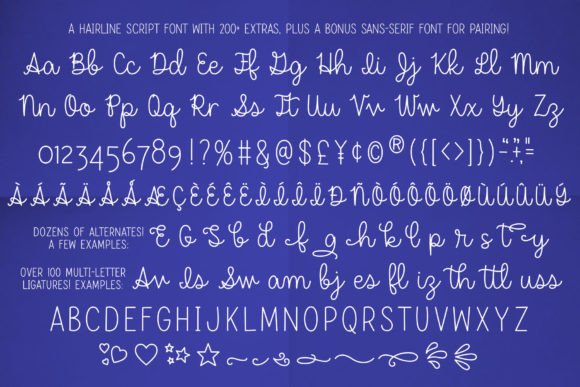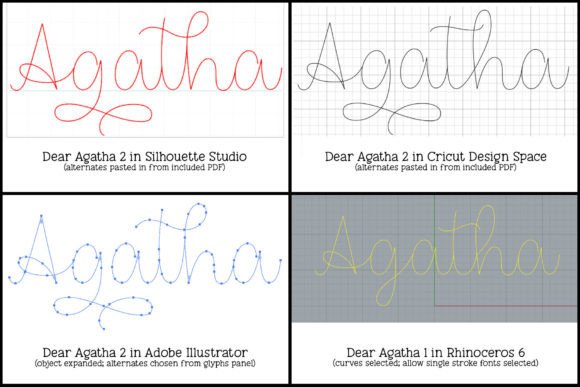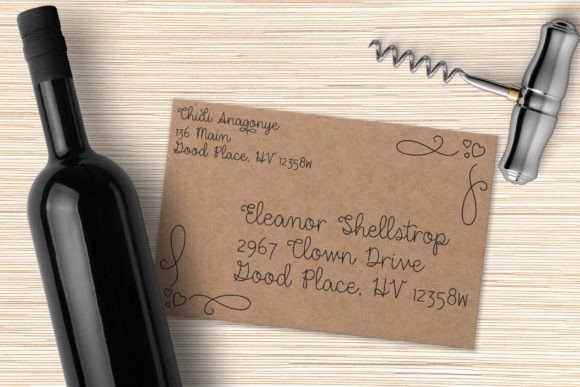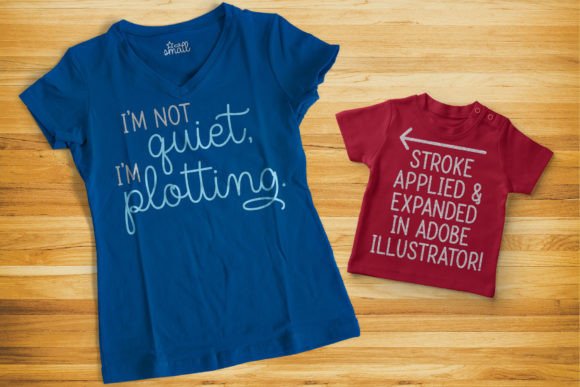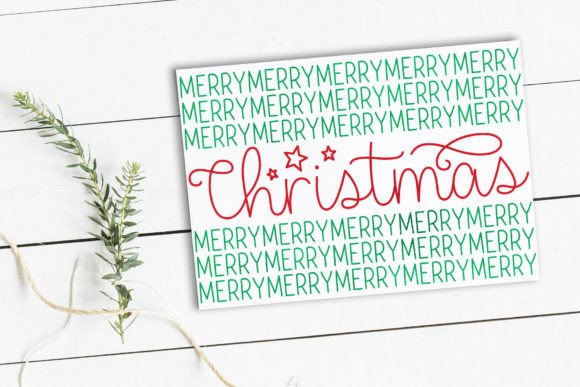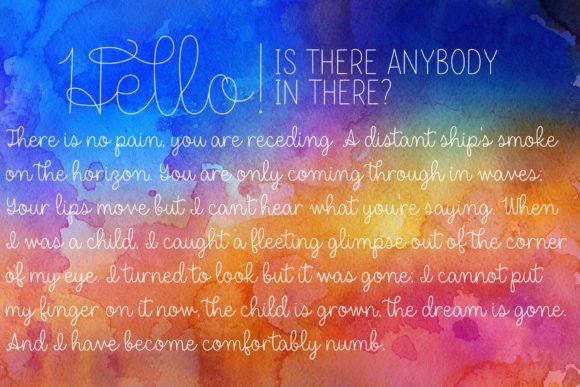
Introducing Dear Agatha: A Stunning Single-Line and Hairline Font Duo
Are you tired of using ordinary fonts for your creative projects? Look no further than Dear Agatha, a unique single-line and hairline font duo that’s perfect for designers and crafters. This versatile font combination includes a fun cursive script with tons of alternates and extras, paired with an all-caps sans-serif font for easy pairing.
What are Single-Line and Hairline Fonts?
Single-line and hairline fonts are not your typical fonts. Unlike standard fonts, they are designed to be used with a sketch pen, foil quill, engraving tool, infusible ink pen, or any other stylus or nib that draws letters with a single line instead of an outline. This means they can’t be used for word processing, printing, or cutting, but are perfect for adding a personal touch to your designs.
Meet Dear Agatha: A Connecting Script Font
Dear Agatha is a beautiful connecting script font that features over 200 alternates, ligatures, and extras, giving you plenty of variety for your designs. The font includes the full Basic Latin and Latin-1 character sets, providing you with plenty of punctuation and a number of accented letters for language support. Whether you’re creating invitations, greeting cards, or social media graphics, Dear Agatha is the perfect choice.
Dear Agatha Sans: The Perfect Pairing
To complement the script font, Dear Agatha also includes an all-caps sans-serif font, Dear Agatha Sans. This font is designed to be perfectly paired with the script font, providing a clean and modern contrast to the elegant script. Like the script font, Dear Agatha Sans also includes the full Basic Latin and Latin-1 character sets, ensuring that you have everything you need to create stunning designs.
Key Features of Dear Agatha
- Single-line and hairline fonts: Perfect for use with a sketch pen, foil quill, engraving tool, infusible ink pen, or any other stylus or nib that draws letters with a single line.
- Connecting script font: Features over 200 alternates, ligatures, and extras for variety.
- All-caps sans-serif font: Perfectly paired with the script font for easy pairing.
- Full Basic Latin and Latin-1 character sets: Includes plenty of punctuation and a number of accented letters for language support.
Tips for Using Dear Agatha
To get the most out of Dear Agatha, here are a few tips:
- Experiment with different pairings: Try pairing Dear Agatha with other fonts to create unique and interesting combinations.
- Use with a stylus or nib: Get creative with a sketch pen, foil quill, engraving tool, or infusible ink pen to add a personal touch to your designs.
- Take advantage of alternates and extras: Use the over 200 alternates, ligatures, and extras to add variety to your designs.
Dear Agatha is a stunning single-line and hairline font duo that’s perfect for designers and crafters. With its unique connecting script font and all-caps sans-serif pairing, this font combination is sure to add a touch of elegance to your designs. Whether you’re creating invitations, greeting cards, or social media graphics, Dear Agatha is the perfect choice. So why wait? Download Dear Agatha today and start creating stunning designs!